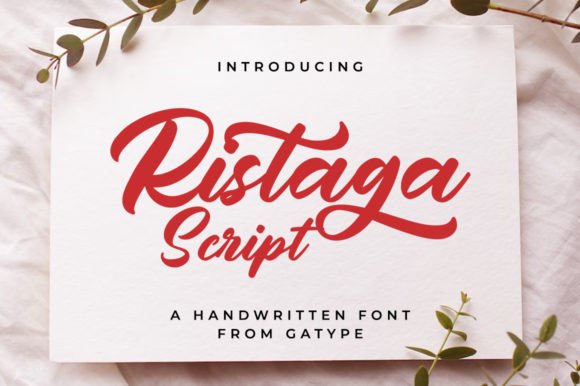
Behold, Ristaga Script Font, the ultimate fusion of nostalgia and contemporary elegance. This captivating script typeface, crafted by the skilled hands of gatype, is more than just a font; it's an artistic journey through time. Inspired by old-school scripts, Ristaga Script exudes a timeless charm that breathes life into your designs.
With its bold strokes and playful swashes, Ristaga Script is the perfect companion for modern logos, branding, and social media graphics. Effortlessly elevate your designs with this font that transforms ordinary text into captivating masterpieces. Whether you're creating a logo for a vintage-inspired boutique or designing a social media campaign that oozes nostalgia, Ristaga Script is the key to unlocking your creative potential.
Unleash the power of typography and let Ristaga Script take your creations to new heights. Its versatility knows no bounds, extending from eye-catching posters and flyers to stunning wedding invitations and elegant letterheads. Embrace the beauty of Ristaga Script and let your designs speak volumes, leaving a lasting impression on your audience.